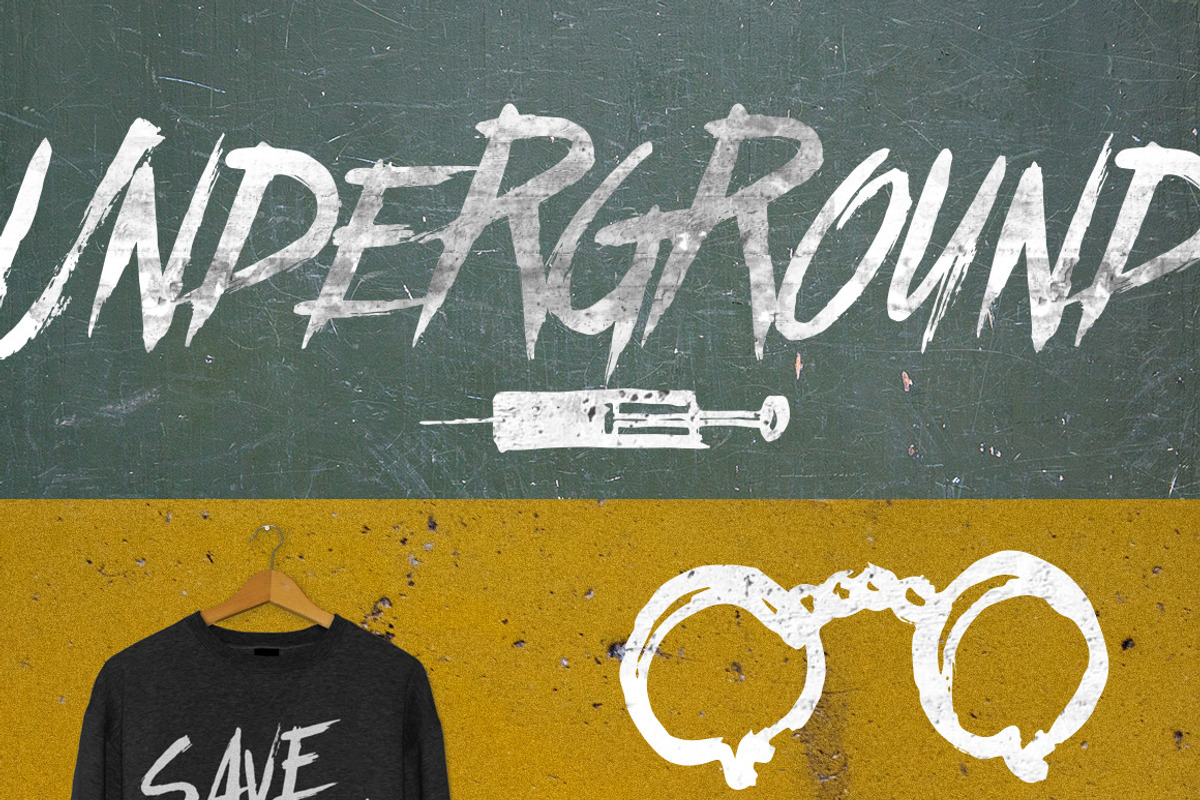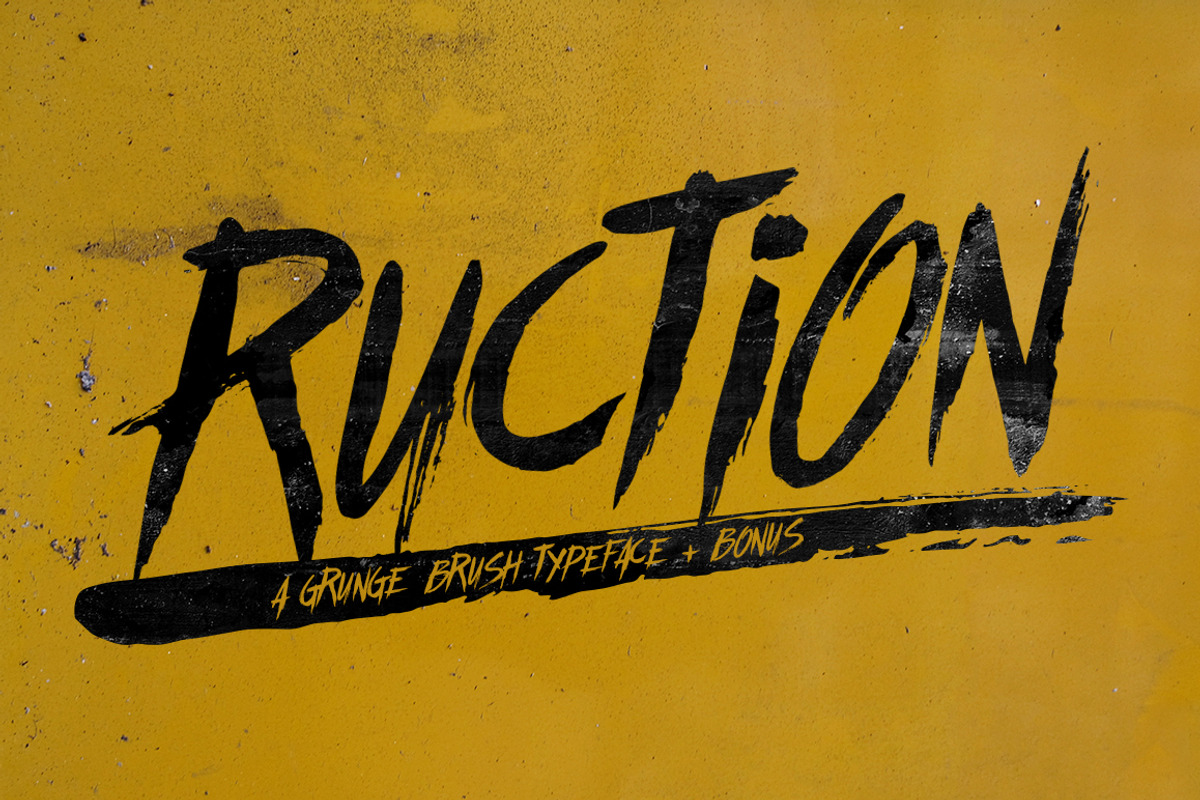
Ruction Typeface
Ruction Typeface by Aarley Kaiven is a font selected for branding, posters, packaging, typography.
Ruction Typeface by Aarley Kaiven fits naturally into Branding, posters, packaging, typography.